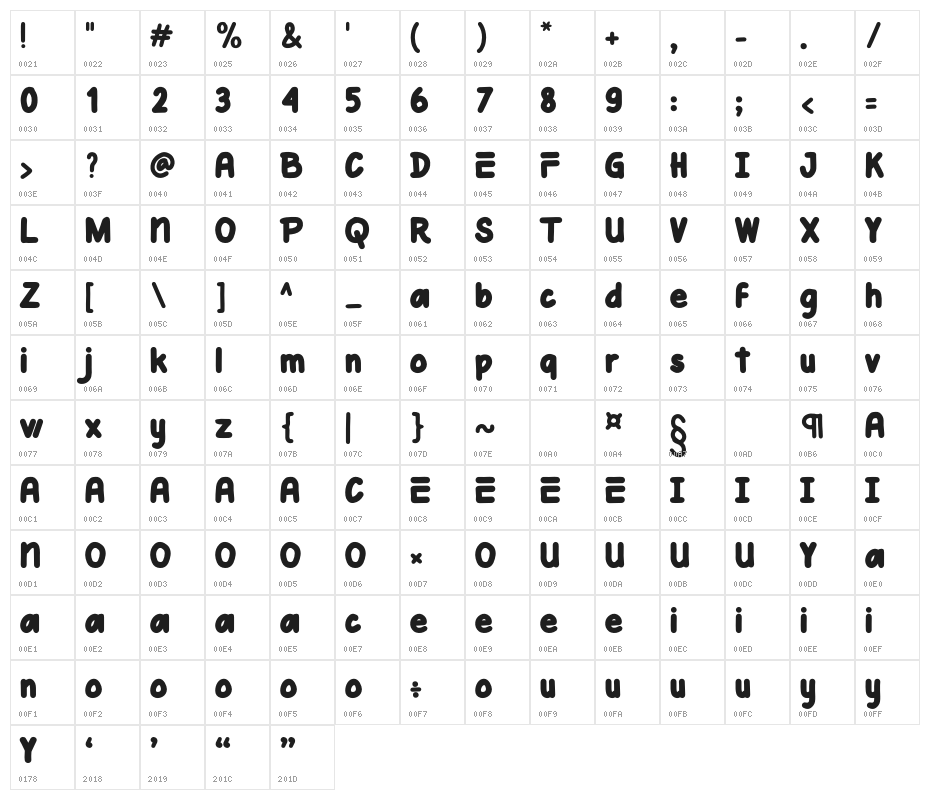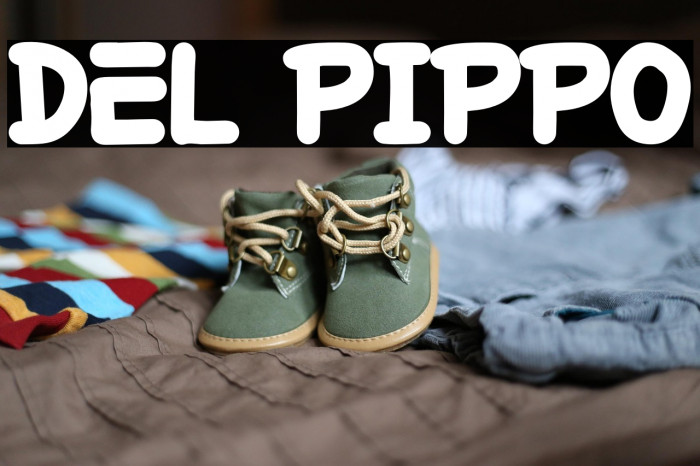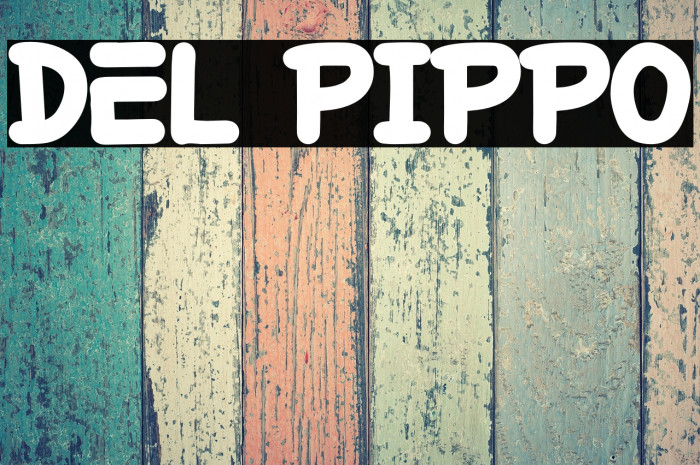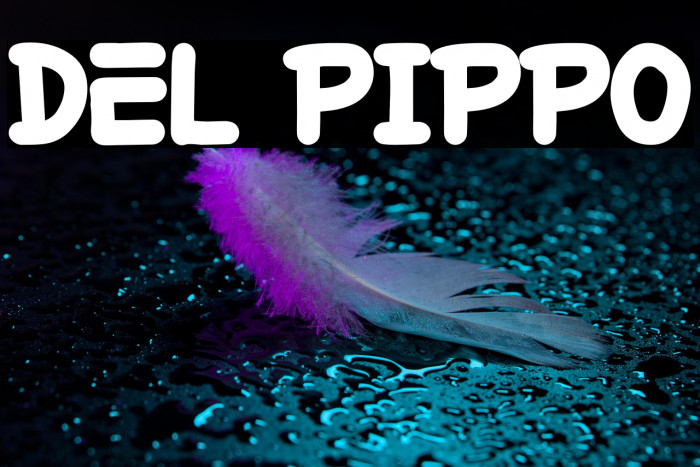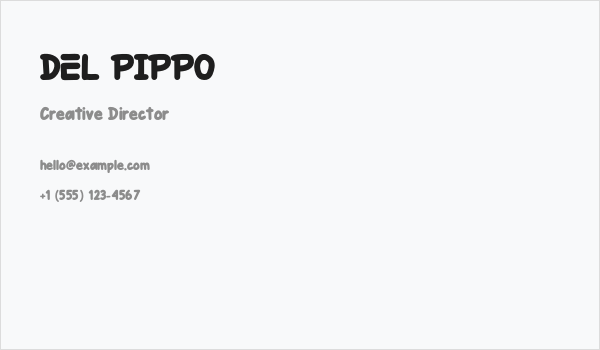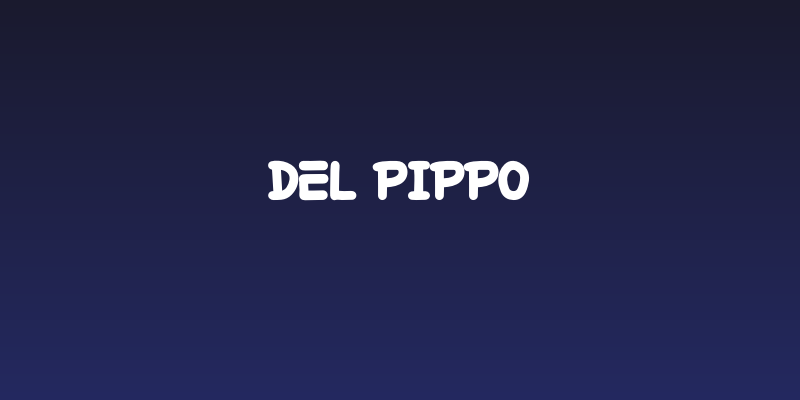
DEL PIPPO Font
| 全体的なスタイル | Playful, Cartoonish |
| 用途 | Headlines, Posters, Branding |
| おすすめプロジェクト | Ideal for children's books, playful branding, posters, and any design needing a fun and approachable feel. |